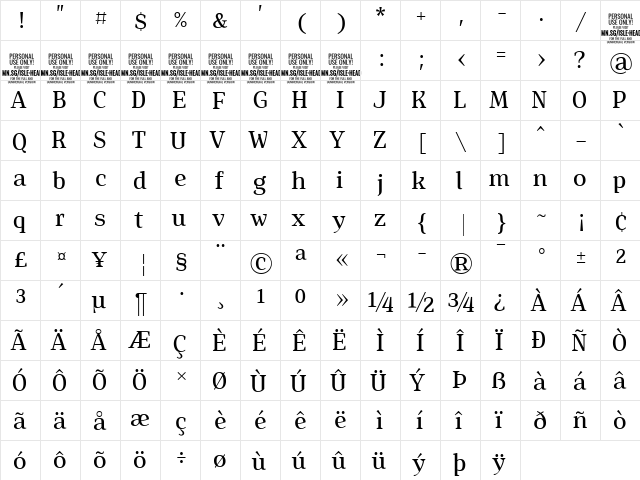
Isle Headline PERSONAL USE Medium
Design Context for Isle Headline PERSONAL USE Typeface
Isle Headline PERSONAL USE is a composed and adaptable typeface that performs quietly and consistently across a wide range of design contexts.